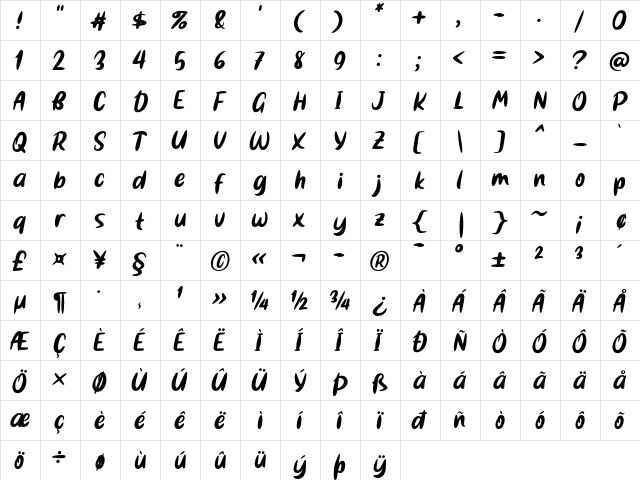
Bestina Regular
| Foundry | 7NTypes |
| Designer | Rifki; Situjuh Nazara |
Design Context for Bestina Typeface
Bestina is a composed and adaptable typeface that performs quietly and consistently across a wide range of design contexts.